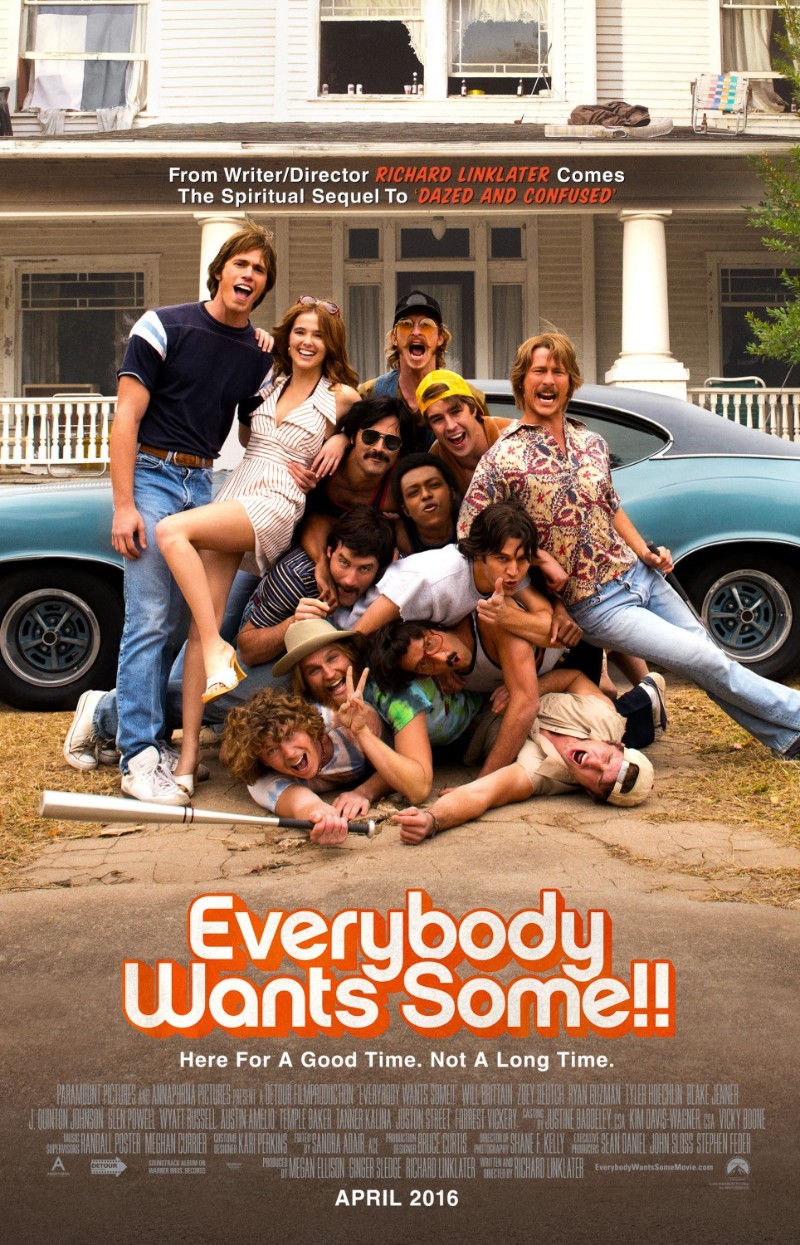
Everybody Wants Some Font
ComedyEverybody Wants Some!! is a comedy-drama film directed by Richard Linklater. It is set in the 1980s and follows a group of college baseball players as they navigate their school's social and athletic demands.
The film's title ''Everybody Wants Some'' seems to be set in House Industrie's Chalet New York 1970, other than the letter ''s" and "S" which could be Chalet New York 1980. In the title sequence, Stuart Sandler's Motel King font is used for the title and credits.